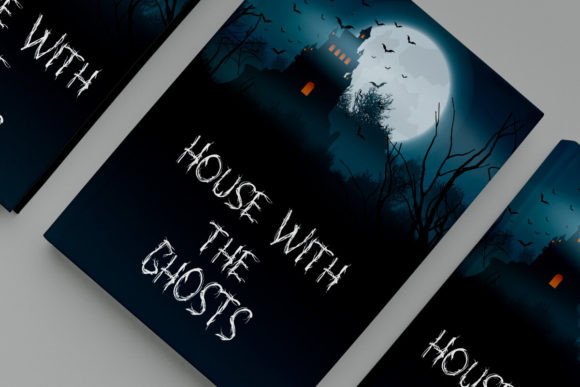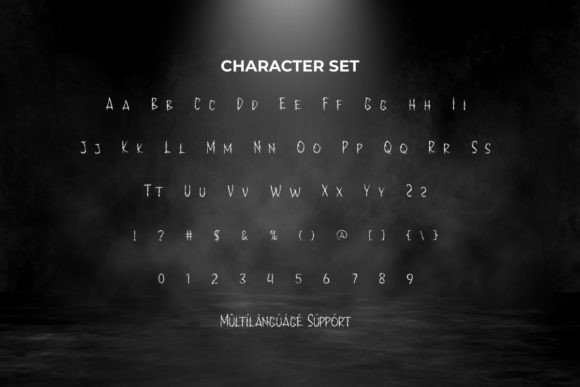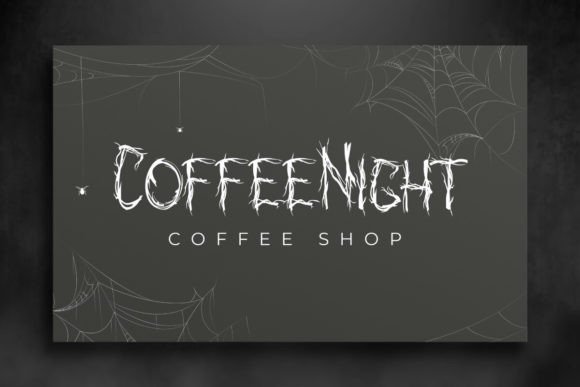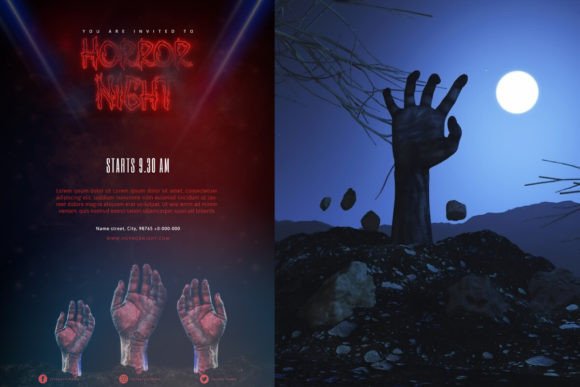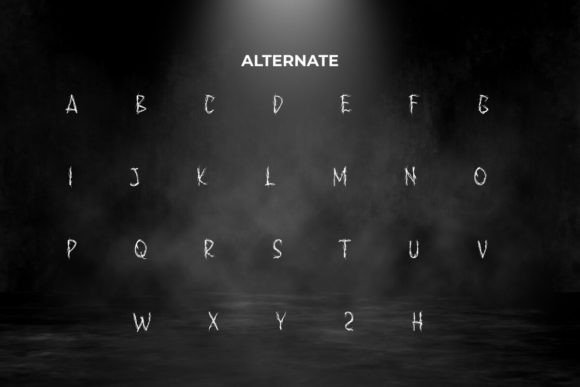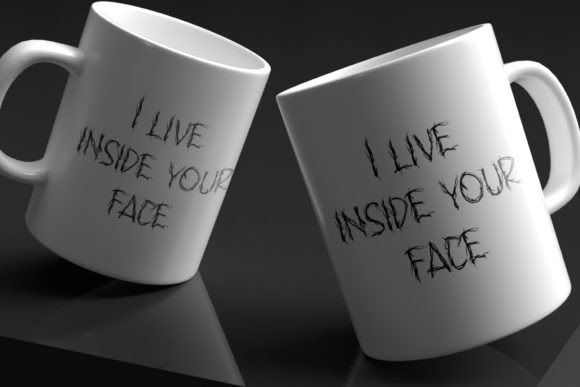
Get Ready to Unleash the Fear: Introducing Angker Font
Have you ever been sitting in a dark room, surrounded by flickering candles, and suddenly felt a chill run down your spine? That’s the moment when the perfect font can elevate your design game. For designers, the right font can be the key to unlocking an atmosphere, evoking emotions, and telling a story. And that’s exactly what Angker Font is designed to do.
Created by EdricStudio, Angker Font is a horror display font inspired by scary stories that’s sure to grip your audience. With its unique blend of old root fibers and eerie letterforms, this font is perfect for any industry looking to create a haunting atmosphere. Whether you’re designing accessories, band merchandise, or a spooky Halloween party invitation, Angker Font is the perfect tool to help you unleash your creativity and tap into the fear factor.
Key Features of Angker Font
- Character Set: This font features a comprehensive character set, including Latin, Cyrillic, and Greek alphabets, as well as a range of punctuation and special characters.
- Unique Characteristics: Angker Font is known for its distinctive, hand-drawn style and intricate details, making it ideal for creative and artistic applications.
Angker Font Review
First of all, I want to say that Angker Font has some really great features that make it stand out ✨. The font is highly customizable, allowing users to adjust the weight, spacing, and even the ligatures to their liking. This level of control is a major plus for designers who need to create unique and complex typography. Additionally, the font supports a wide range of languages, making it a great choice for multilingual projects ✨.
Another great aspect of Angker Font is its versatility. It can be used for a variety of projects, from branding and advertising to publishing and digital design. The font is also highly legible, making it easy to read even at small font sizes ✨.
- ⚠️ Limited glyph support: While Angker Font supports a wide range of languages, it may not have all the glyphs needed for certain languages or dialects.
- ⚠️ Not ideal for small text: While the font is highly legible, it may not be the best choice for very small text sizes, as the details can become lost.
Overall, I would say that Angker Font is a solid choice for designers who need a highly customizable and versatile font. While it may have some limitations, its strengths far outweigh its weaknesses. With a little creativity and experimentation, Angker Font can be a powerful tool in any designer’s toolkit.
Getting the Most Out of Angker Font
Angker Font is a versatile font that can be used in various designs, from logos to typography. To get the most out of it, experiment with different font sizes, colors, and combinations to find the perfect look for your design.
Angker Font is perfect for:
Logo designs